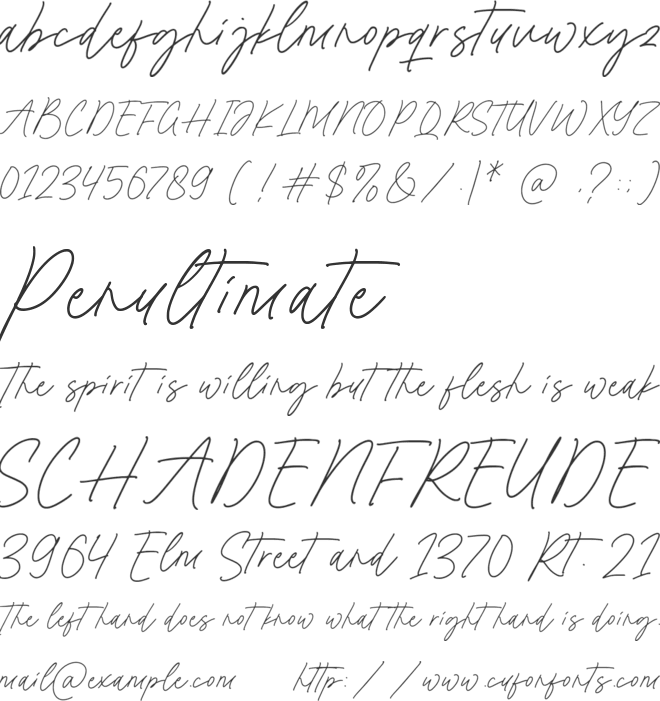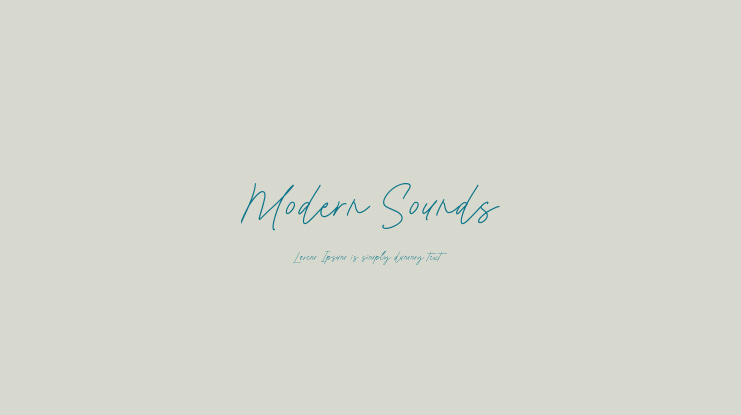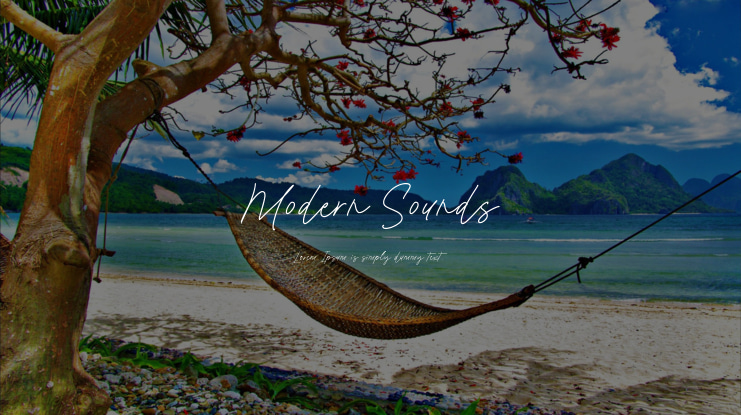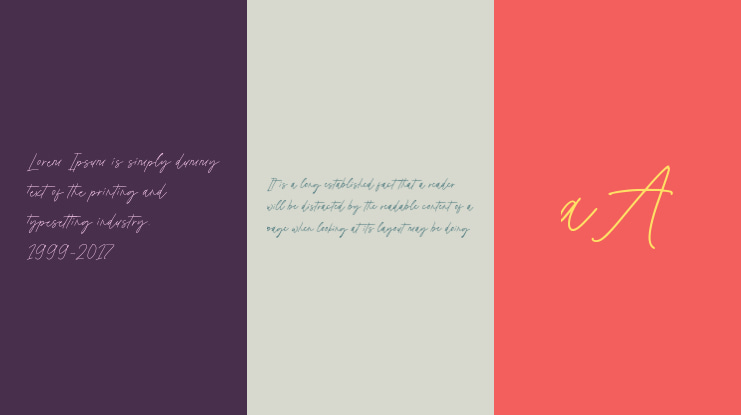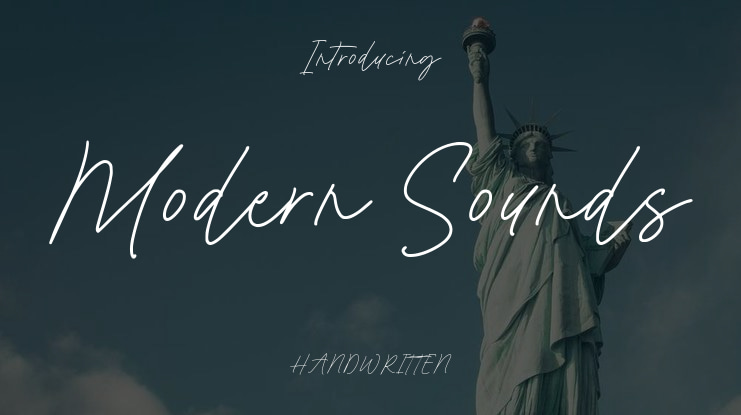
Modern Sounds Font
Experience the elegance of Modern Sounds, a monoline script font designed for contemporary design projects. This stylish font exudes sophistication with its seamless strokes and modern aesthetics, making it the perfect choice for minimalistic and elegant designs. With TTF, OTF, and WOFF formats and multilingual support included, "Modern Sounds" offers versatility and functionality. Feel free to provide feedback and enjoy using this font in your projects. Thank you!